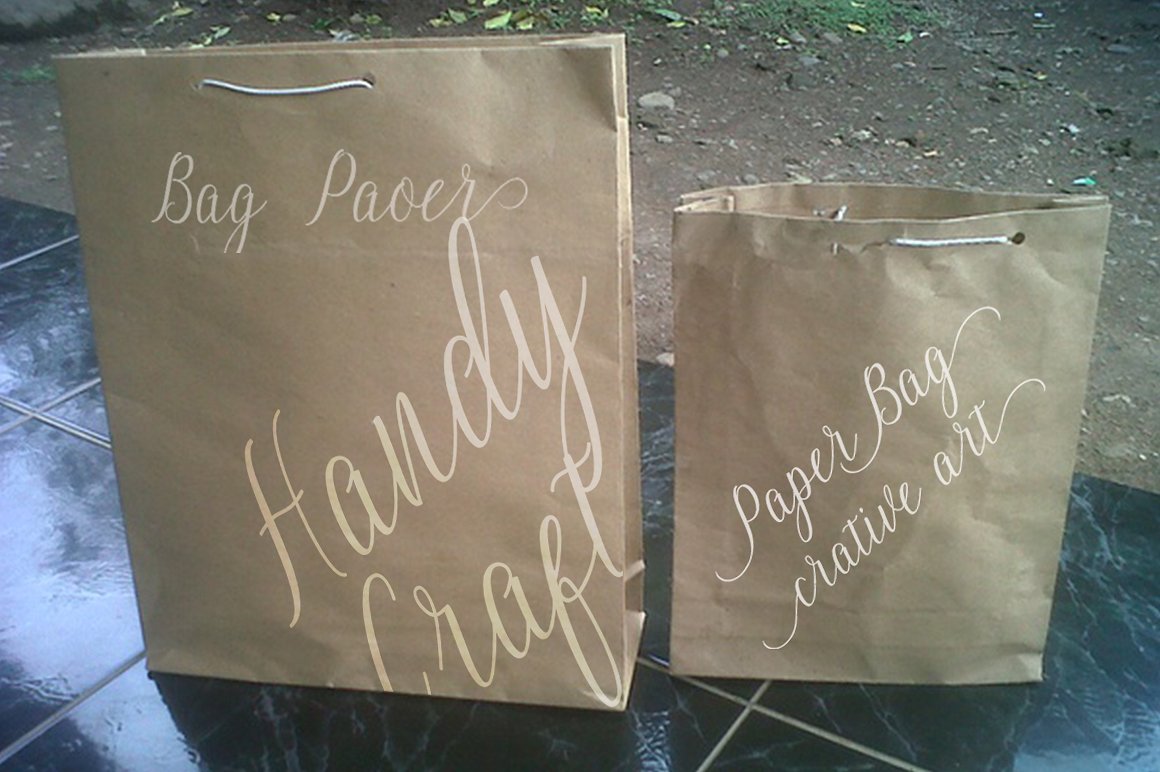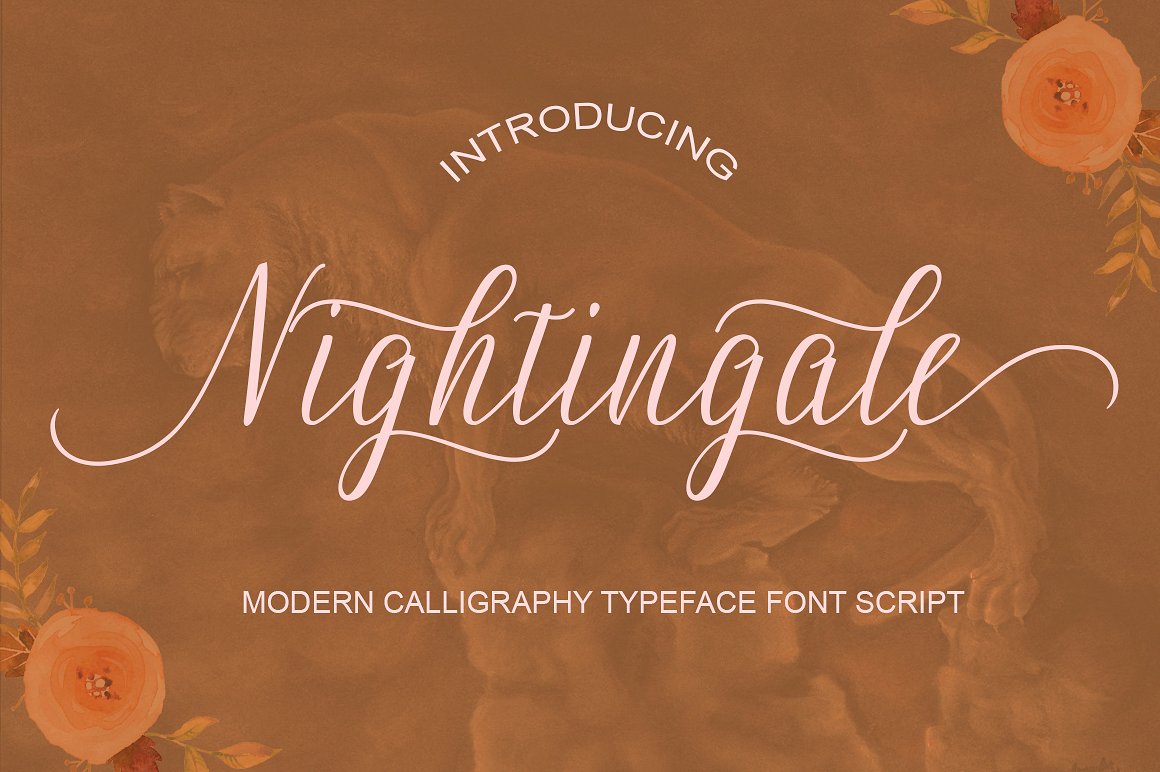
Nightingale Calligraphy
Nightingale Calligraphy Font
Nightingale Modern Calligraphy. This font was designed by handwriting, and it has a modern and unique forms of calligraphy, the writing style is very natural.